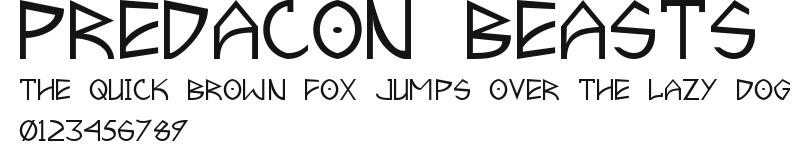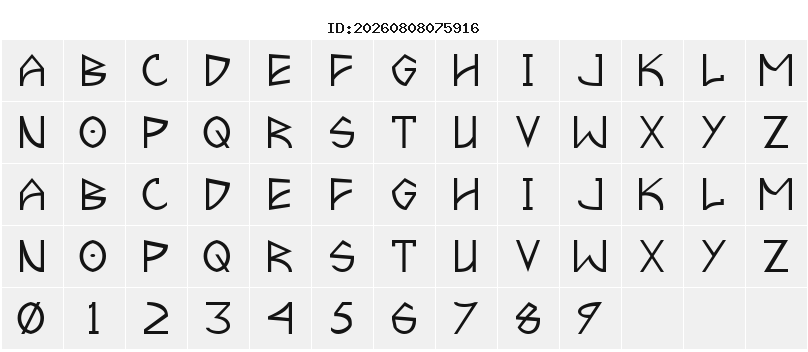
Predacon Beasts Preview
• Font Name: Predacon Beasts
About Predacon Beasts.ttf
Predacon Beasts.ttf is a modern, elegant sans-serif font designed for ultimate readability and visual harmony. Perfect for branding, headlines, web design, and print materials.